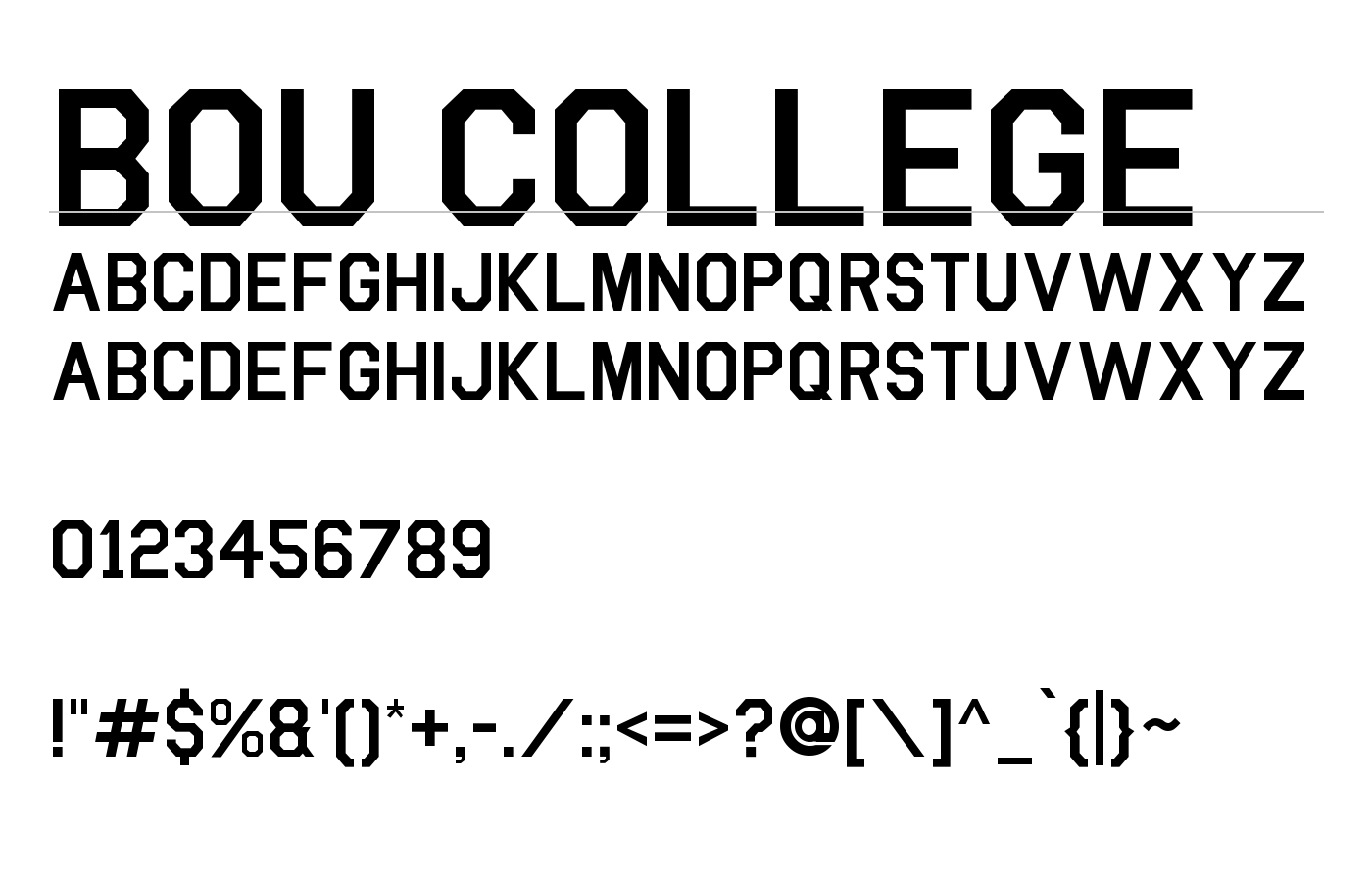
Bou College is a bold, geometric sans serif font with a condensed width and a strong, angular structure that gives it a sporty and modern vibe. Its sharp edges and uniform stroke weight create a clean, athletic look reminiscent of collegiate and varsity lettering, making it ideal for logos, sports apparel, and dynamic headlines. The font’s sturdy presence and straightforward style work well to convey energy, confidence, and a contemporary yet classic feel.
Bou College Font
About Bou College Font